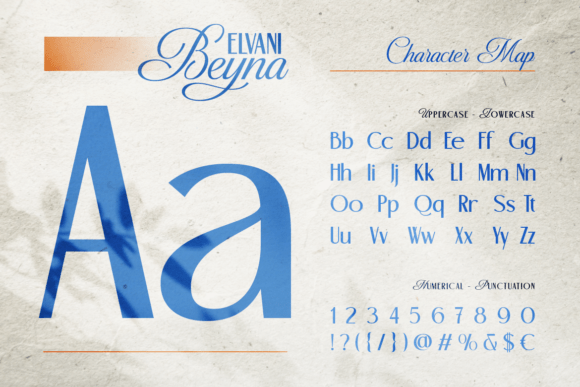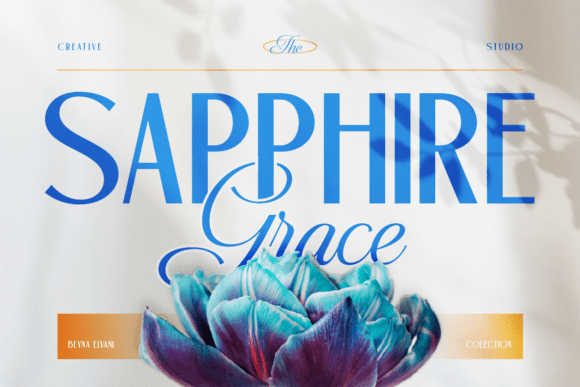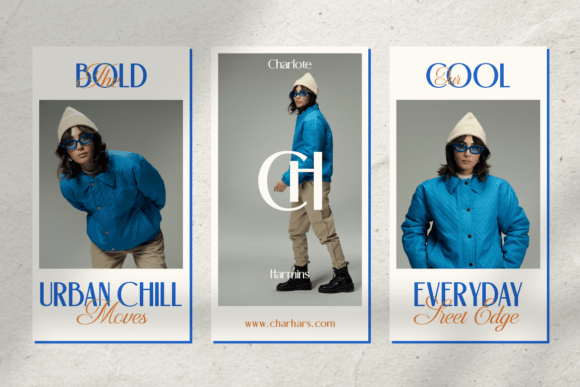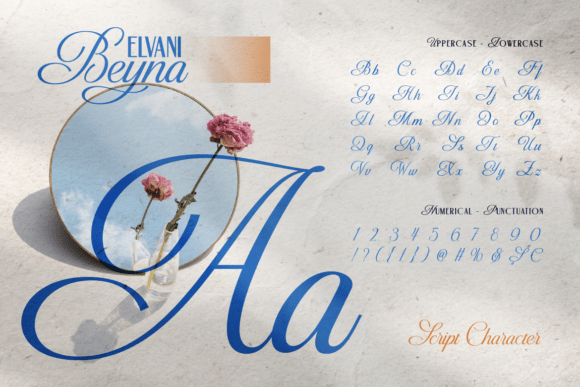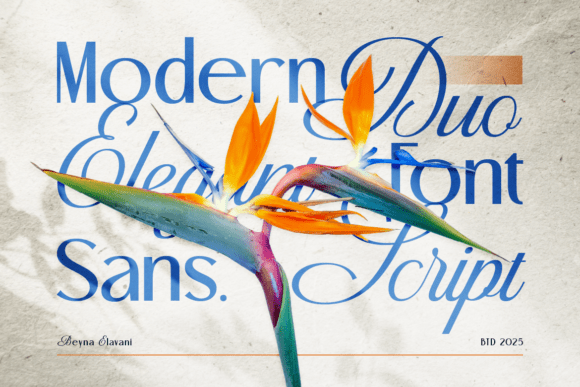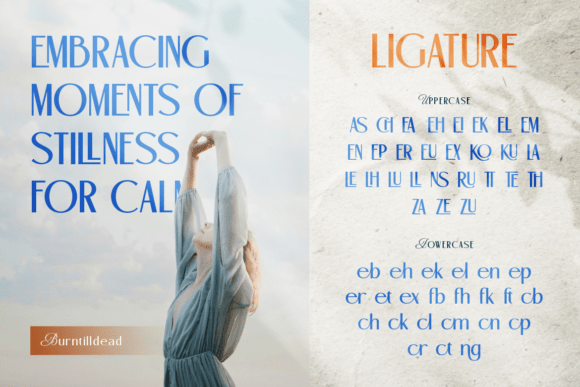
The Ultimate Font Duo: Beyna Elvani and Why You’ll Love It
Have you ever been in the middle of a design project, and suddenly, you’re stuck on finding the perfect font? I recall a particularly frustrating experience while working on a wedding invitation design. My client wanted something elegant, yet modern, and I was determined to deliver. That’s when I stumbled upon the Beyna Elvani font duo, and it completely transformed my design. In this article, I’ll share why I’m obsessed with this font combination and how you can make the most of it in your own projects.
What Makes Beyna Elvani Special?
If you’re looking for a font duo that feels both classy and modern, Beyna Elvani is here to impress. This typeface combines two beautiful styles in one: Beyna, a flowing and graceful script font, and Elvani, a clean and stylish sans serif. Together, they create the perfect balance between sophistication and readability.
The Beauty of Beyna
At first glance, Beyna brings a touch of romance with its smooth curves, delicate ligatures, and elegant flow. It’s perfect for logos, wedding invitations, branding, and anything that needs a luxurious handwritten feel. Beyna is ideal for adding a personal touch to your designs, making them stand out with a sense of warmth and character.
The Versatility of Elvani
On the other hand, Elvani grounds the design with its sharp lines and minimal sans serif style, making it versatile for modern layouts, headlines, and body text. Elvani ensures that your design remains neat and professional, providing a solid foundation for your creative projects.
• ✨ Perfect Pairing: The combination of Beyna and Elvani creates a harmonious balance between elegance and modernity.
• ✅ Elegant Script: Beyna’s smooth curves and ligatures add a luxurious feel to any design.
• ✅ Clean and Versatile: Elvani’s sans serif style is perfect for both headlines and body text, making it incredibly versatile.
• ✅ Easy to Read: Despite its elegant nature, Beyna Elvani remains highly readable, even at smaller sizes.
• 🤔 Glyph Overload: With so many beautiful glyphs and alternates, it can be overwhelming to navigate through all the options.
• ⚠️ Script Limitations: While Beyna is stunning, it may not be the best choice for very long body text due to its script nature.
The Designer Inspiration Behind Beyna Elvani
The creators of Beyna Elvani aimed to craft a font duo that embodies both sophistication and approachability. Inspired by classic calligraphy and modern design trends, Beyna and Elvani were designed to work seamlessly together, offering a versatile solution for a wide range of creative projects.
Q: What makes Beyna Elvani unique?
A: Beyna Elvani is unique because it combines a beautiful script font (Beyna) with a clean sans serif (Elvani), creating a perfect balance between elegance and readability.
Q: Is Beyna Elvani suitable for body text?
A: While Beyna is best used for headings and highlights, Elvani can be used for body text due to its clean and readable design.
Q: Can I use Beyna Elvani in digital projects?
A: Absolutely! Beyna Elvani is versatile and works well in both print and digital designs, including websites, social media graphics, and presentations.